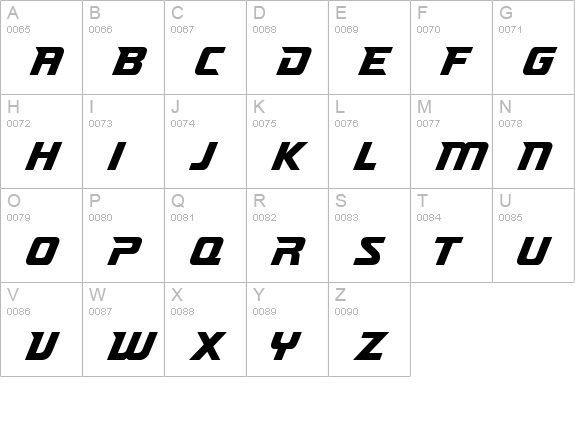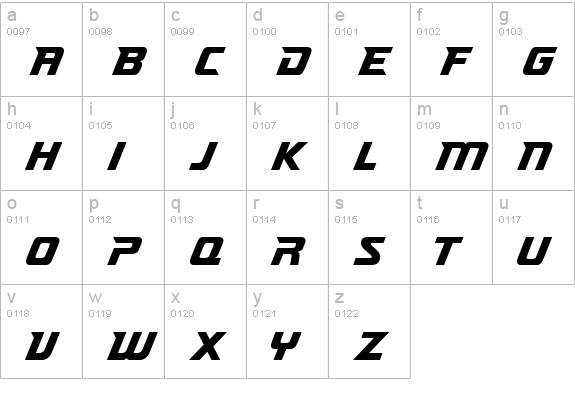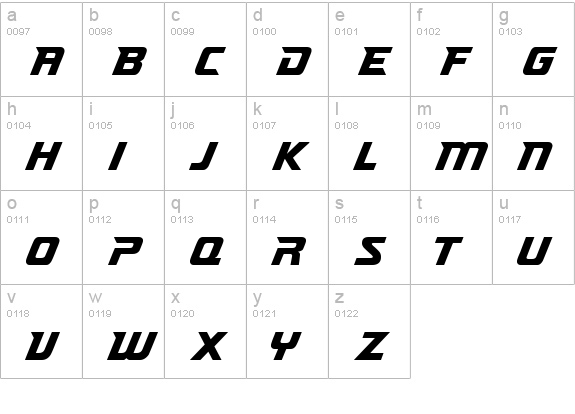
The Richardson Brand Accelerator font is a stunning typeface that encapsulates the essence of modernity and sophistication. Its sleek lines and contemporary design make it perfect for a wide range of creative projects, from logo design to branding materials and beyond. This font exudes a sense of energy and forward-thinking, making it an ideal choice for businesses seeking to make a bold statement. What makes the Richardson Brand Accelerator font even more appealing is that it is available for free. Yes, you heard it right – this remarkable font can be downloaded at absolutely no cost from FontsMarket.com. This means that designers, entrepreneurs, and creative enthusiasts alike can harness the power of this extraordinary font without breaking the bank. With its versatile nature and captivating aesthetic, the Richardson Brand Accelerator font is bound to transform any project into a visually striking masterpiece. Its seamless integration into various design applications ensures a seamless experience for users, allowing them to effortlessly bring their ideas to life. Whether you are revamping your company's visual identity, designing a captivating advertisement, or creating eye-catching social media graphics, the Richardson Brand Accelerator font is the perfect tool to elevate your work to new heights. Its sleek and modern appearance will help your brand stand out from the crowd, leaving a lasting impression on your audience. So why wait? Dive into the world of creativity and download the Richardson Brand Accelerator font for free at FontsMarket.com today. Unleash your imagination and let this font be the driving force behind your next design endeavor.